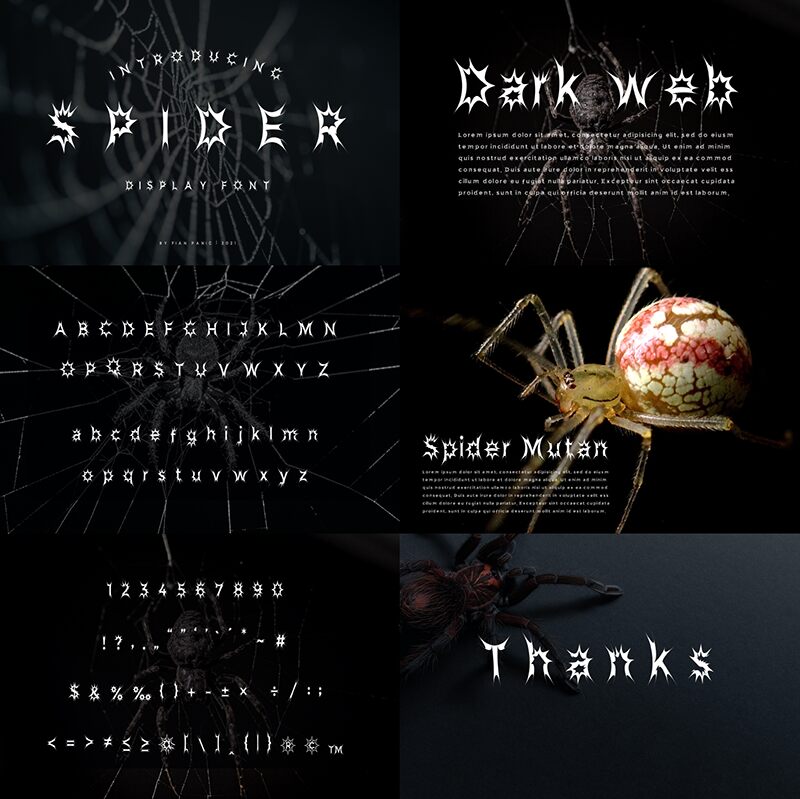
Spider Panic font, designed by Fian Cahyo Dwi Prasetyo, is a modern gothic typeface with spiky edges. With its semi-light weight, this font is perfect for adding a touch of edginess to your designs without overwhelming them. Its unique style makes it suitable for various projects such as website headers, book covers, posters, and branding materials. It can also be used in horror or thriller movie titles to convey a sense of fear and panic. Spider Panic font is the perfect choice for anyone looking to add a modern twist to their designs while keeping them bold and striking.
Spider Panic